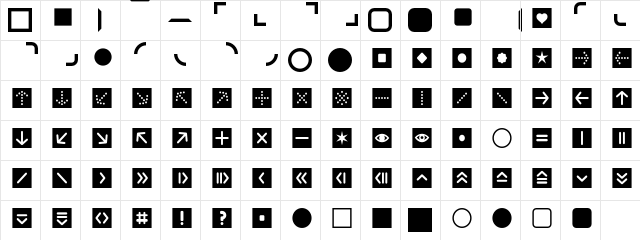
ButtonBonus SquareNegative
| Style | SquareNegative |
Design Context for ButtonBonus Typeface
ButtonBonus takes a measured approach to typography — its balanced proportions and neutral character make it a reliable workhorse for both digital and print work.
Pro Tip: Pair ButtonBonus with a font of contrasting weight or personality to build a more expressive typographic hierarchy.